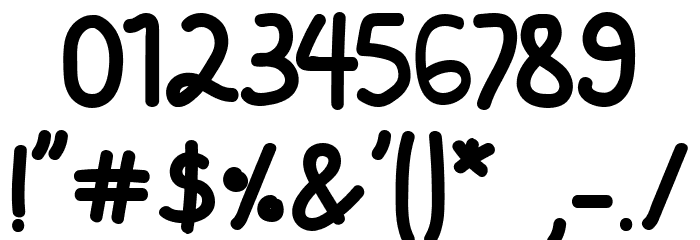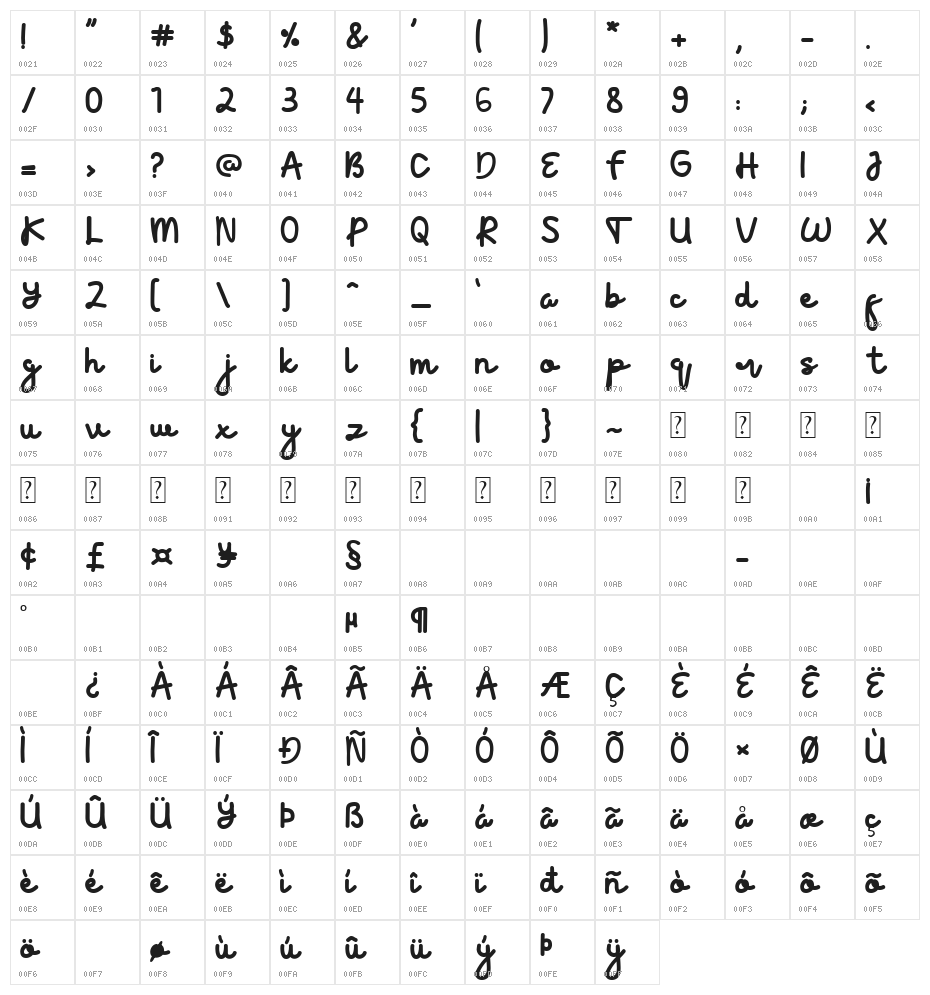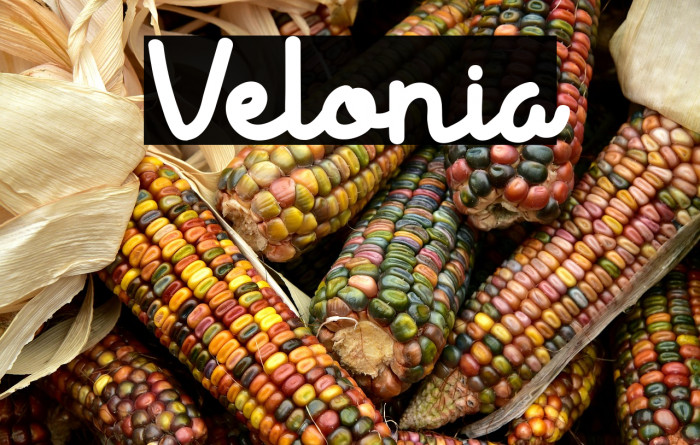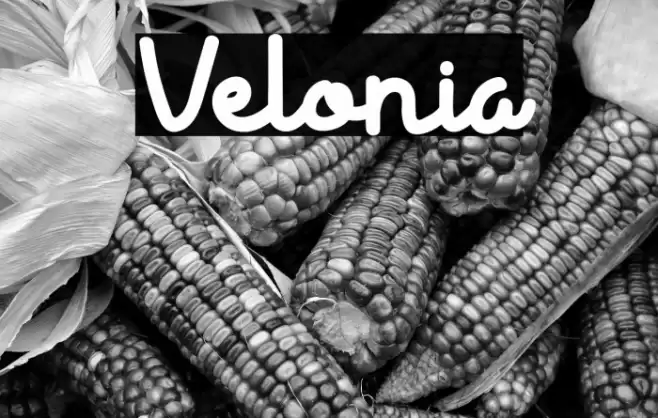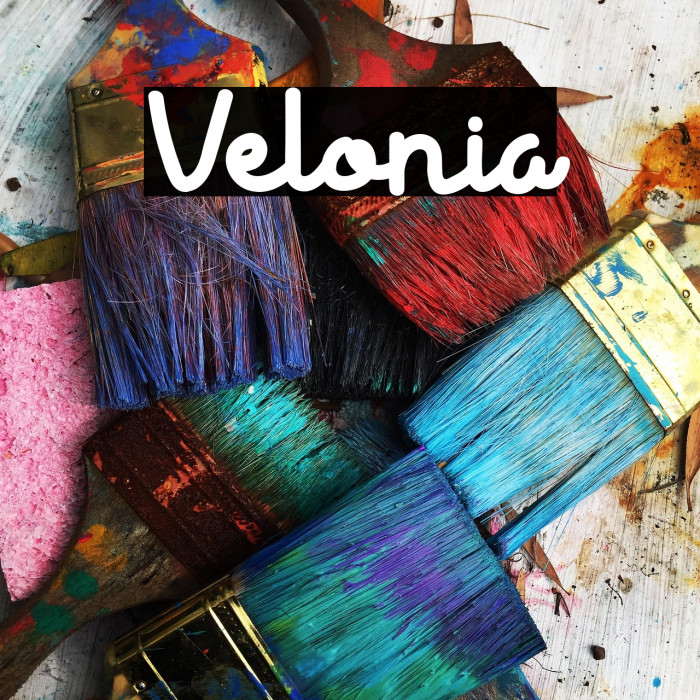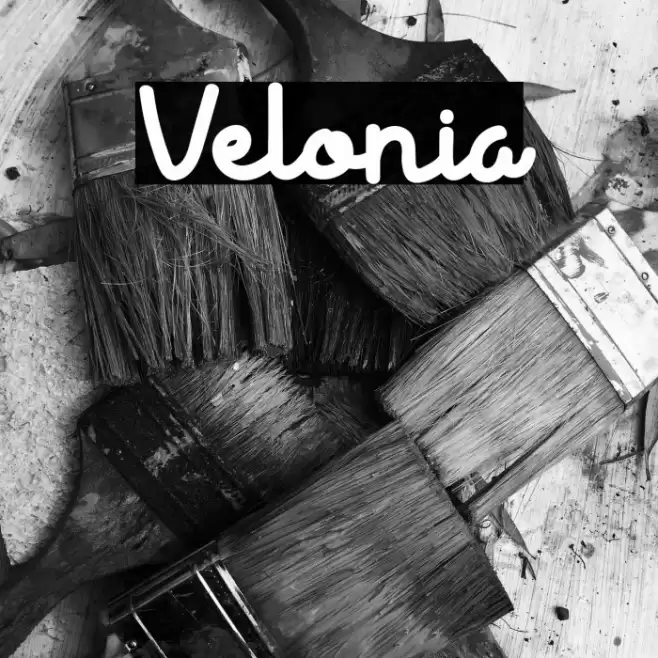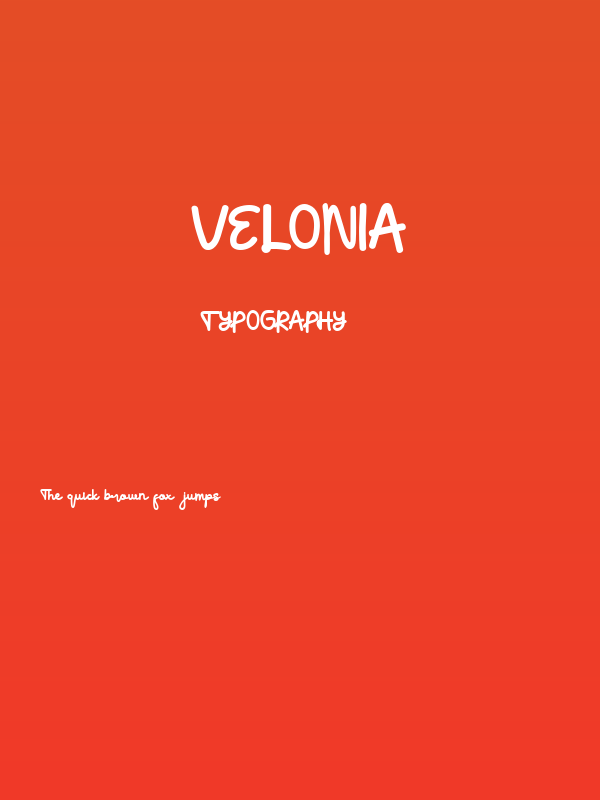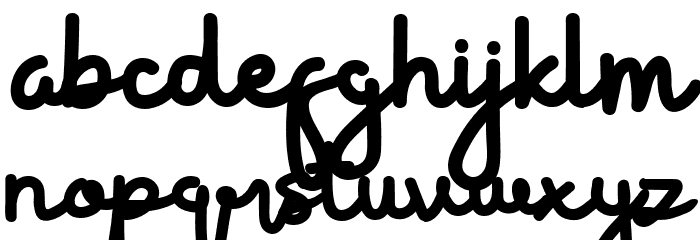
Velonia Font
Velonia Description
This font features a playful and casual handwritten style, characterized by its smooth, flowing lines and rounded edges. The uppercase letters maintain a consistent height, while the lowercase letters exhibit a charming, slightly irregular baseline, adding to its informal appeal. The numerals are bold and clear, ensuring readability. Special characters are well-integrated, maintaining the font's cohesive look. This font's overall appearance is friendly and approachable, making it suitable for a variety of creative projects.
Overall StyleCasual
Use CaseLogos, Headlines, Informal Text
Proposed ProjectsIdeal for greeting cards, children's books, playful branding, and social media graphics.